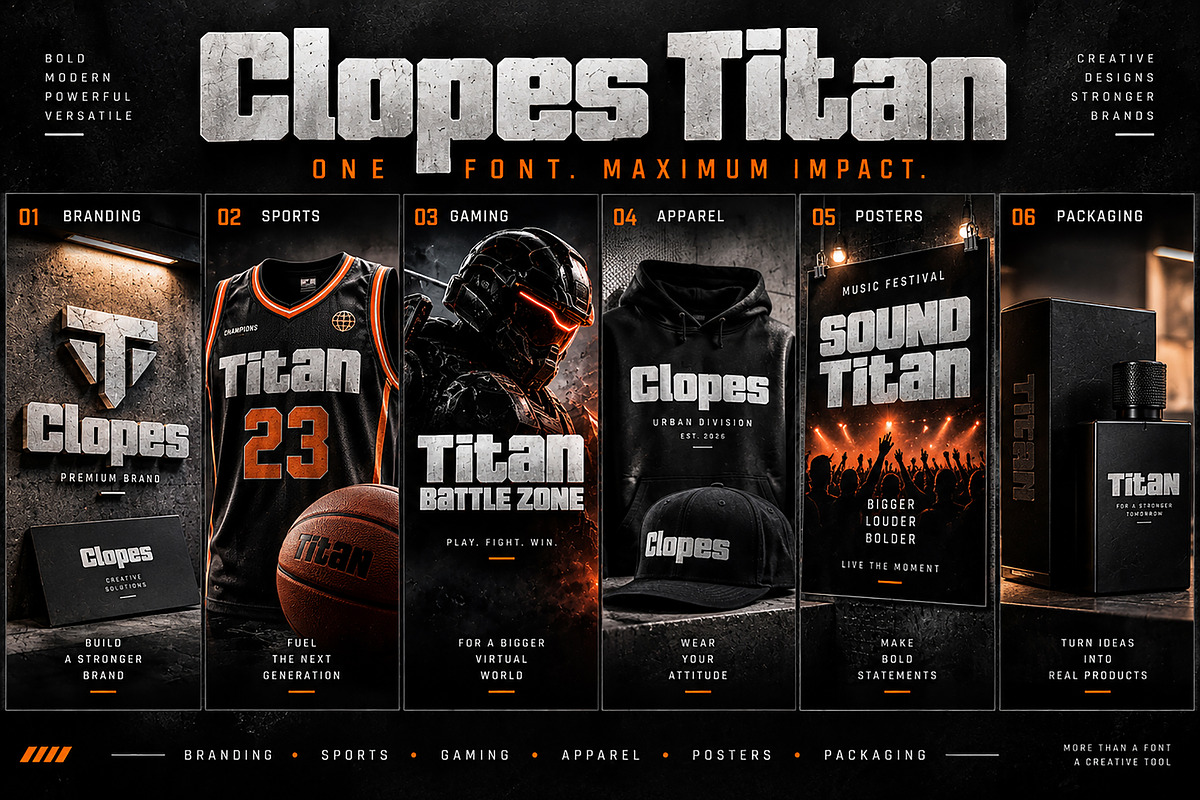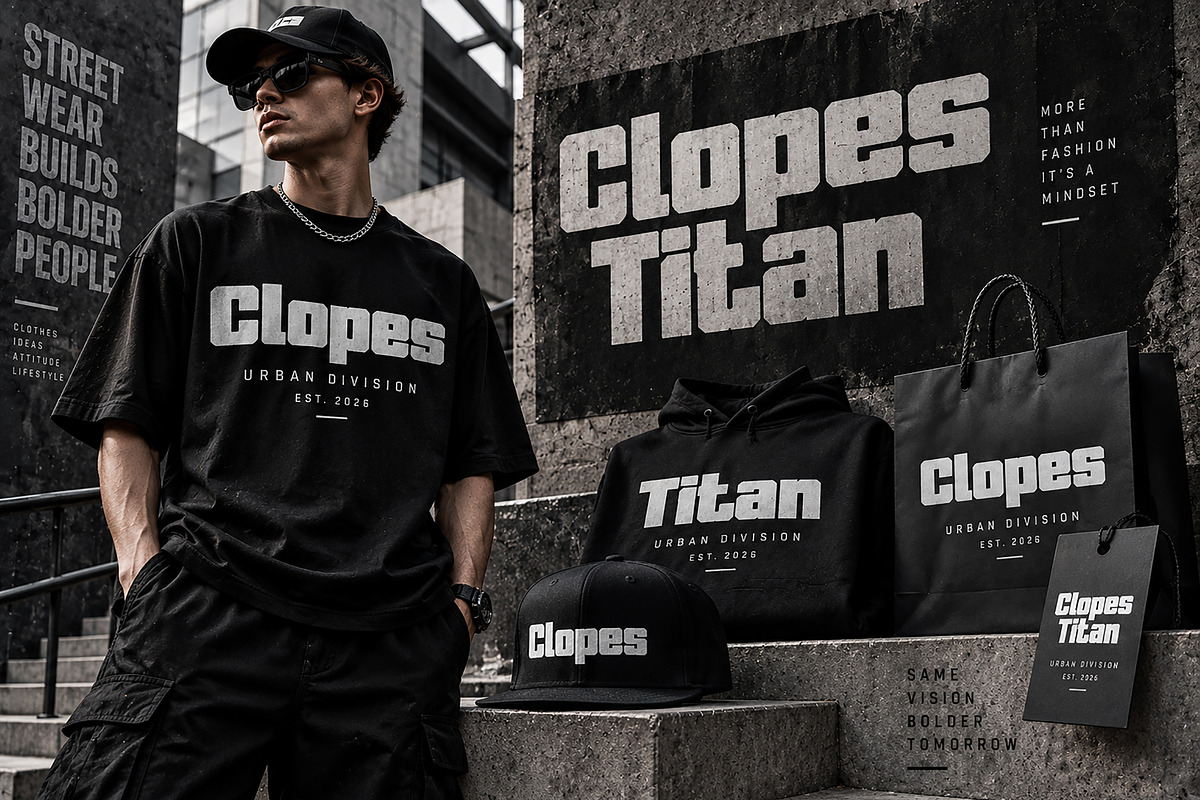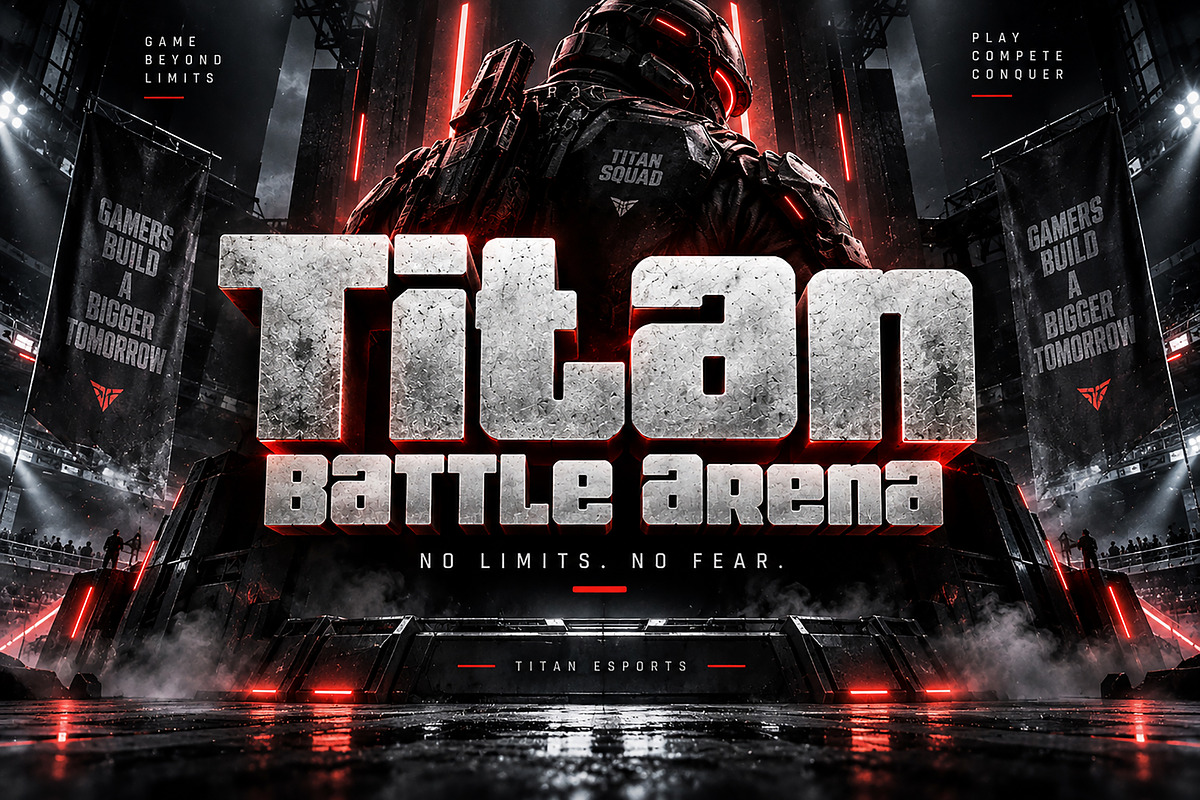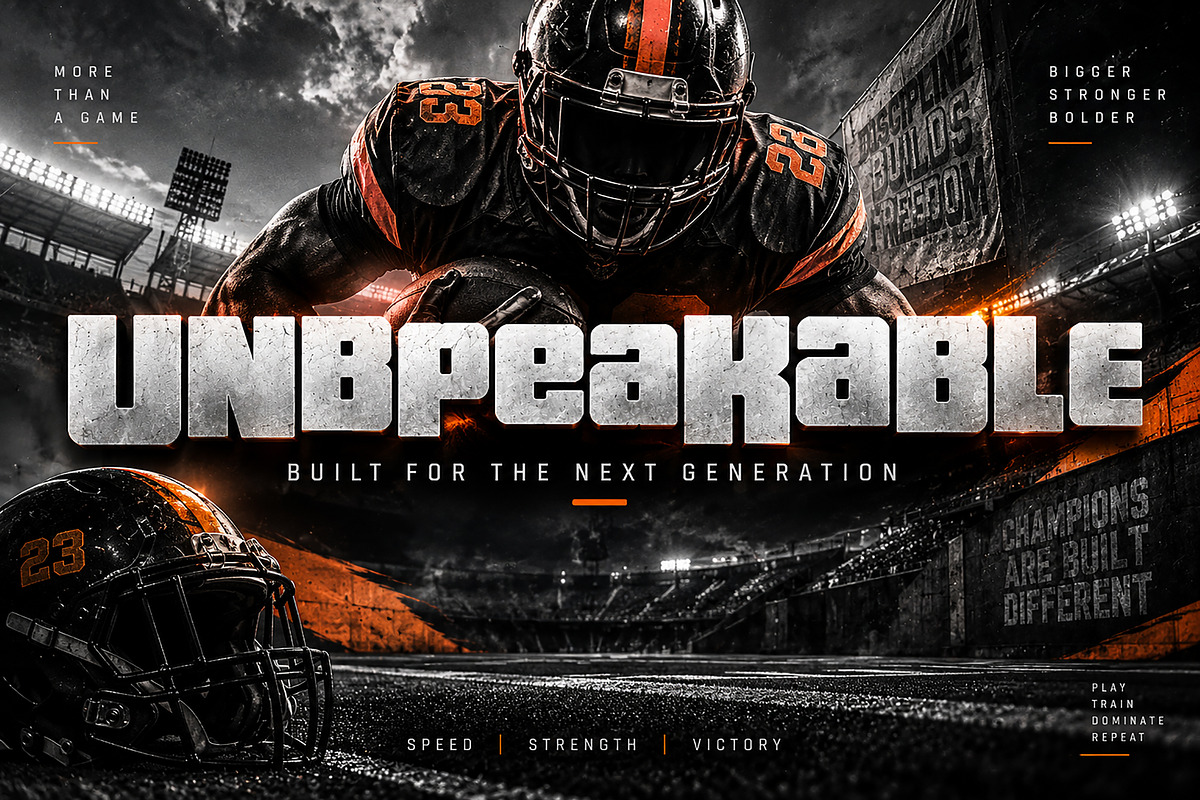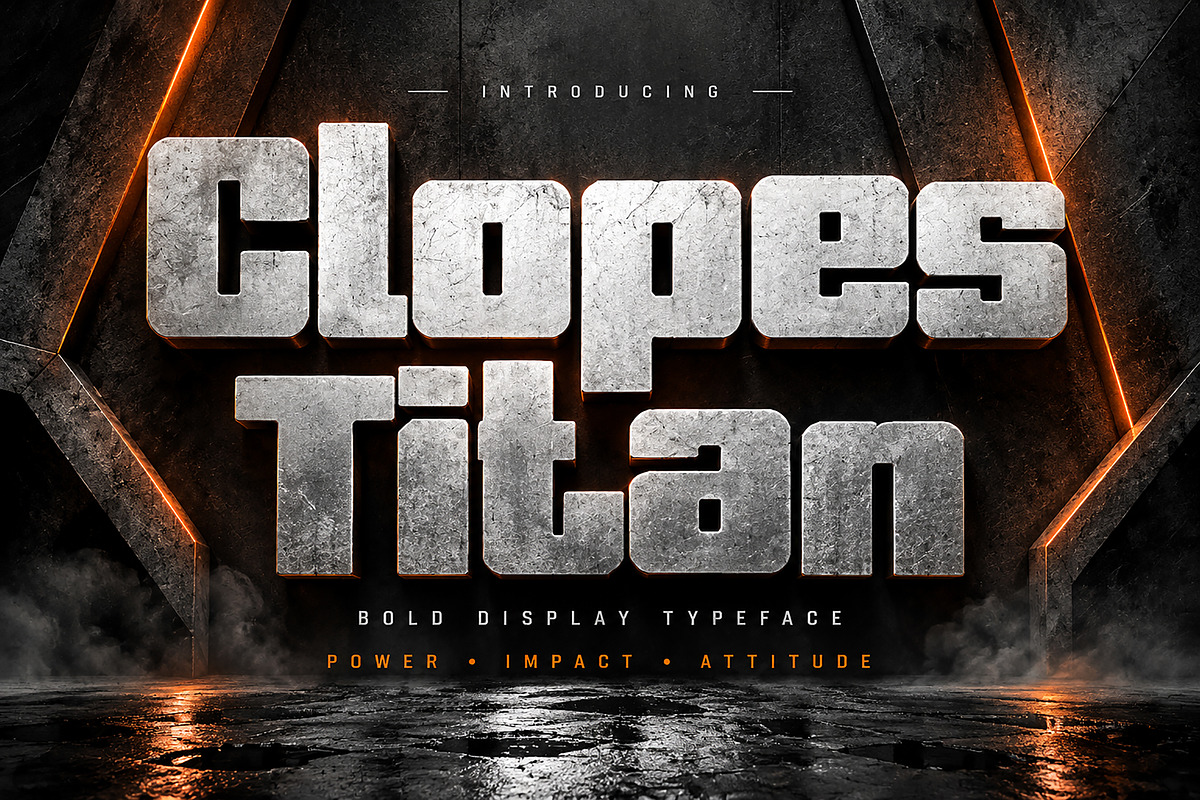
Clopes Titan
Clopes Titan is a bold, heavy display typeface designed to make an immediate visual impact. With its powerful block-style letterforms, strong geometric construction, and commanding presence, this font is perfect for designs that need a confident and energetic typographic statement.
Whether you're creating a sports identity, esports branding, streetwear graphics, posters, merchandise, packaging, or bold promotional artwork, Clopes Titan brings a strong modern attitude to your designs.
Sports & Athletic Branding
Esports & Gaming Graphics
Streetwear & Apparel
Logo & Brand Identity
Posters & Headlines
Event Graphics
T-Shirt & Hoodie Designs
Labels & Merchandise
Promotional Designs
YouTube & Gaming Artwork
Bold & Heavy Display Style
Strong Blocky Letterforms
Powerful Geometric Appearance
Excellent for Large Headlines
Suitable for Branding & Logo Concepts
Designed for High-Impact Visuals
Clopes Titan is built for designers who want typography that feels strong, modern, energetic, and impossible to overlook.